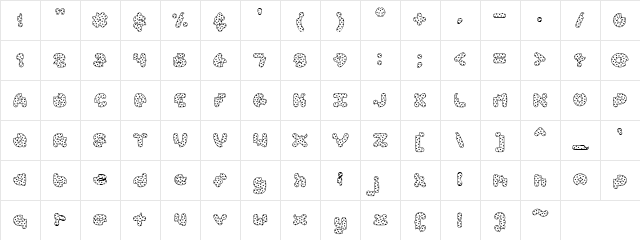
Complete Accent Cookie Dough Regular glyph index. Displaying only characters natively supported by Accent Cookie Dough Regular font.
Accent Cookie Dough is a composed and adaptable typeface that performs quietly and consistently across a wide range of design contexts.